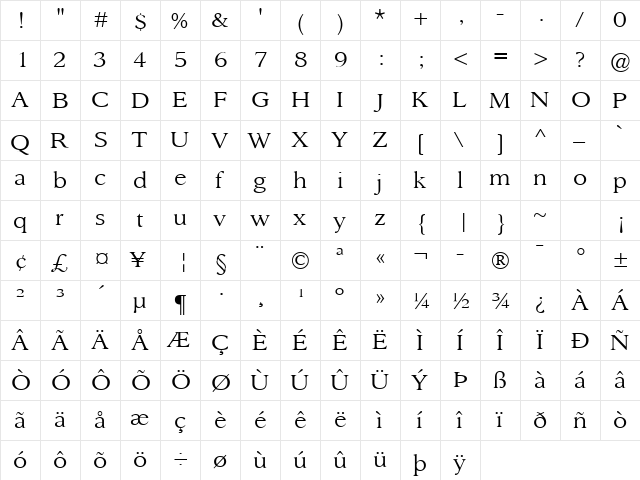
Sanford Book
Design Context for Sanford Typeface
Sanford takes a measured approach to typography — its balanced proportions and neutral character make it a reliable workhorse for both digital and print work.